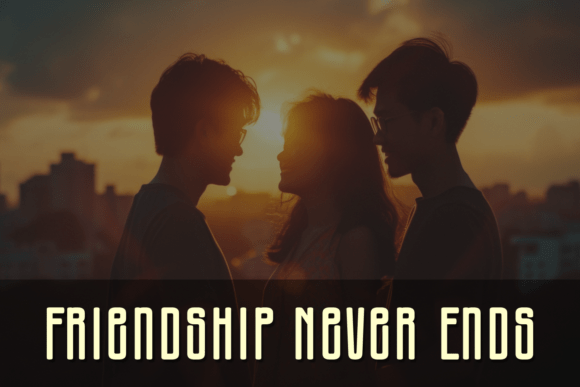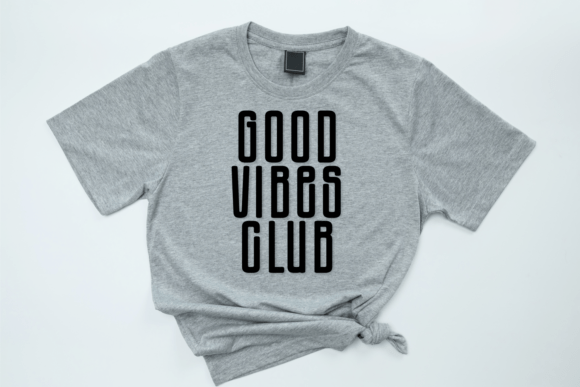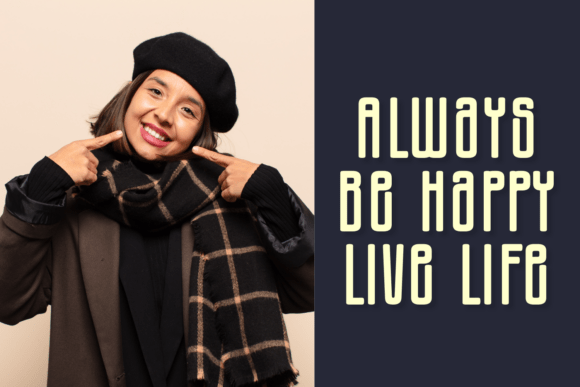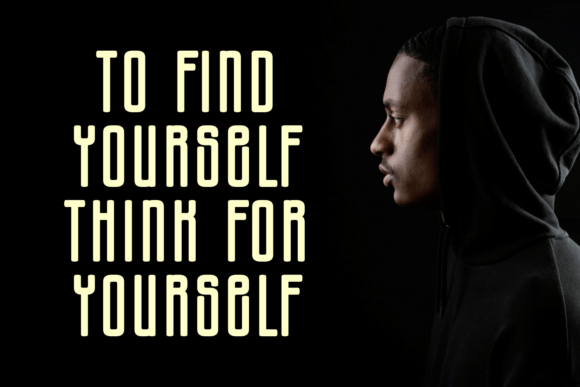
Dream Forever Font: Elevate Your Brand’s Visual Aesthetic with Sophistication and Elegance
In the realm of typography, a font can make or break the visual identity of a brand. For designers and crafters seeking a distinct typeface that exudes sophistication and genuineness, look no further than the “Dream Forever” font. This stunning Sans Serif font, crafted by the genius minds at 7ntypes, is poised to revolutionize the way you approach branding, packaging, and design.
Aesthetic Wonder with Exceptional Adaptability
Dream Forever is more than just a font – it’s an aesthetic wonder that seamlessly traverses various platforms with exceptional adaptability. Whether you’re looking to create a fashionable print on clothing, a stylish magazine headline, or an artful greeting card, this font is the perfect choice. Its clean, round, and smooth aesthetics make it an ideal fit for a wide range of design applications, from book covers and product packaging to inspiring quotes and social media graphics.
Clean, Round, and Smooth Aesthetics
One of the standout features of Dream Forever is its clean, round, and smooth aesthetics. Available in both regular and italic versions, this font is designed to bring a touch of elegance and sophistication to your designs. The rounded edges and smooth lines create a sense of warmth and approachability, making it perfect for brands looking to establish a friendly and inviting tone.
Dream Forever is a prime choice for designers and crafters seeking a font that can elevate their visual aesthetic. Whether you’re working on a book cover, product packaging, or a greeting card, this font lends a magical touch to the design, enhancing its charm. The font’s versatility and adaptability make it an excellent addition to any designer’s toolkit.
Seasonal Trend with Perfectly Engineered Swashes
As a logotype font, Dream Forever is remarkable in the seasonal trend, serving as an outstanding choice for brands looking to create a lasting impression. The font’s perfectly engineered swashes add a touch of sophistication and elegance, making it perfect for high-end brands and luxury products.
Why Choose Dream Forever?
So, why choose Dream Forever over other fonts? Here are just a few reasons why this font stands out:
- Sophisticated and Elegant: Dream Forever exudes sophistication and elegance, making it perfect for high-end brands and luxury products.
- Exceptional Adaptability: This font seamlessly traverses various platforms, from print to digital, making it a versatile addition to any designer’s toolkit.
- Clean and Smooth Aesthetics: The font’s clean, round, and smooth aesthetics create a sense of warmth and approachability, making it perfect for brands looking to establish a friendly and inviting tone.
- Perfectly Engineered Swashes: The font’s swashes are perfectly engineered, adding a touch of sophistication and elegance to any design.
| Font Name | Dream Forever Font |
| Author | Wankriss |
In conclusion, Dream Forever is a game-changing font that can elevate your brand’s visual aesthetic with sophistication and elegance. Its exceptional adaptability, clean and smooth aesthetics, and perfectly engineered swashes make it a prime choice for designers and crafters seeking a distinct typeface. Whether you’re working on a book cover, product packaging, or a greeting card, Dream Forever is the perfect choice. Welcome the exclusive trend of Dream Forever and let it revolutionize your design approach.